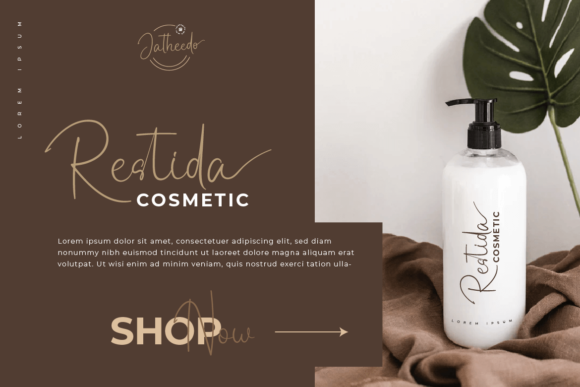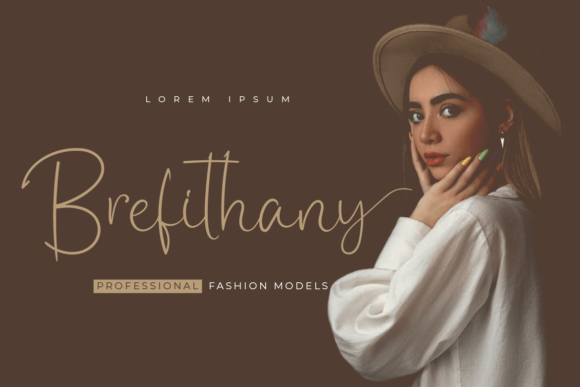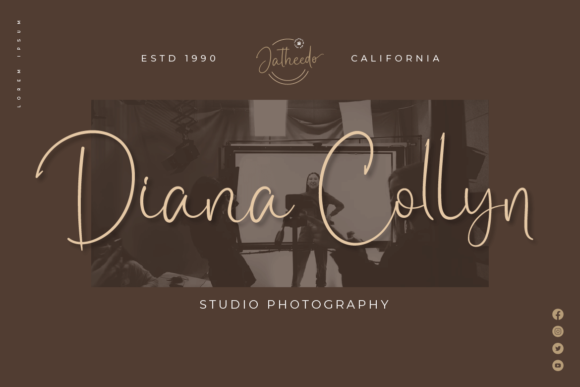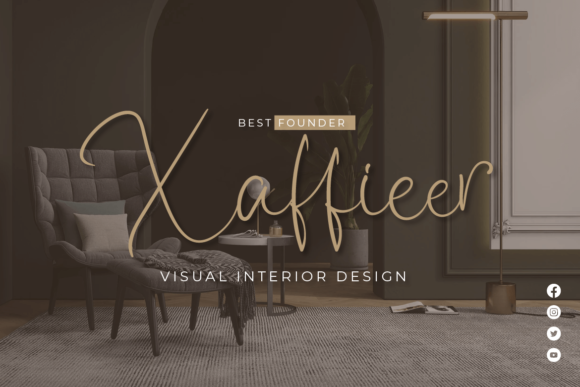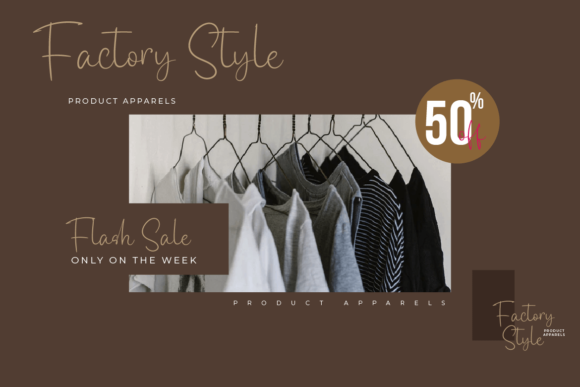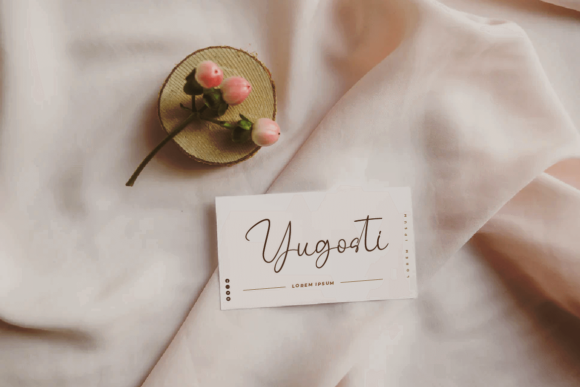
Introduction to Jatheedo Font
Jatheedo is a delicate, thin lettered and flowing script font.
This font is PUA encoded which means you can access all glyphs and swashes with ease Add it confidently to your favorite creations and let yourself be amazed by the outcome generated.